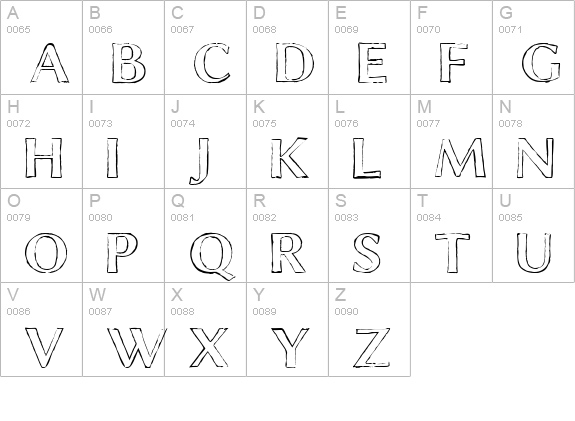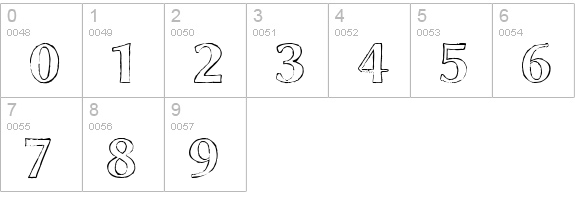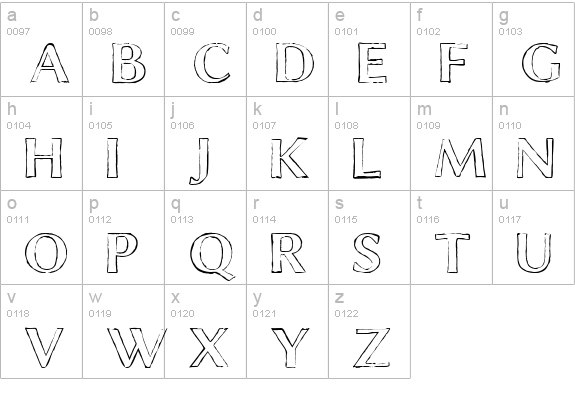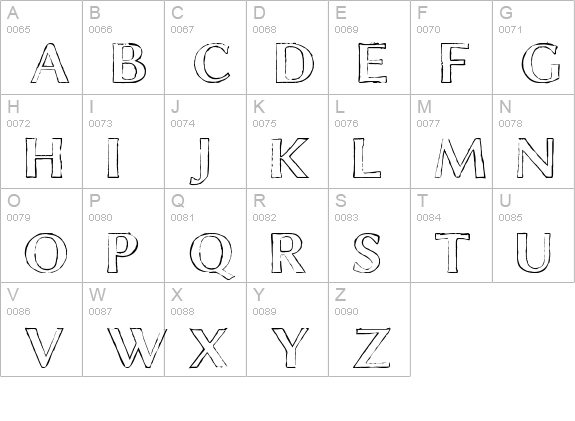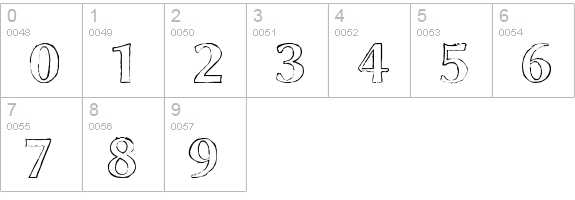
Introducing Chalk Line Outline, a captivating font that effortlessly combines the elegance of calligraphy with the rustic charm of chalk line sketches. This unique typeface is perfect for adding a touch of whimsy and creativity to any design project. Chalk Line Outline stands out with its clean lines and distinct character, giving your text a hand-drawn appearance without sacrificing legibility. Whether you're designing invitations, posters, or social media graphics, this font will make your message pop and capture the attention of your audience. What sets Chalk Line Outline apart is not only its stunning visual appeal but also its versatility. It seamlessly adapts to a variety of themes and moods, making it ideal for both playful and sophisticated designs. From casual birthday cards to elegant wedding invitations, this font effortlessly adds a touch of personality to any occasion. And the best part? Chalk Line Outline is absolutely free! You can easily download it at FontsMarket.com, a reliable source for high-quality fonts. Say goodbye to spending a fortune on expensive typography – with Chalk Line Outline, you can bring your creative vision to life without breaking the bank. So why wait? Download Chalk Line Outline now and explore the endless possibilities it offers. Transform your designs into works of art with this one-of-a-kind font and watch as your projects come to life with its unique charm and character. Let your imagination run wild and let Chalk Line Outline be your creative companion.